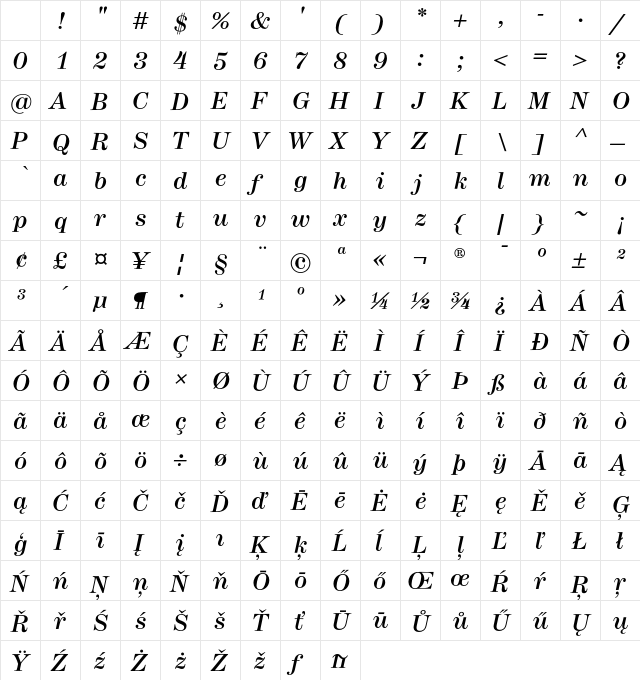
Complete Hercules Medium Medium Italic glyph index. Displaying only characters natively supported by Hercules Medium Medium Italic font.
Hercules Medium is a composed and adaptable typeface that performs quietly and consistently across a wide range of design contexts. The slanted form adds forward momentum and visual energy.
Pro Tip: Use Hercules Medium for emphasis, pull quotes, and subheadings where its slanted energy can add rhythm to the layout.